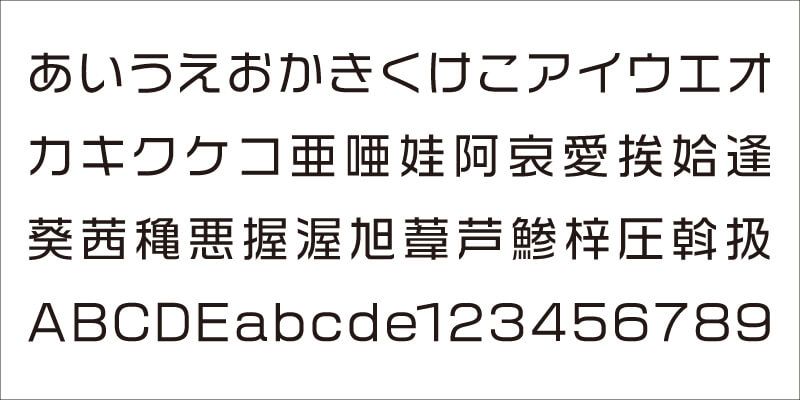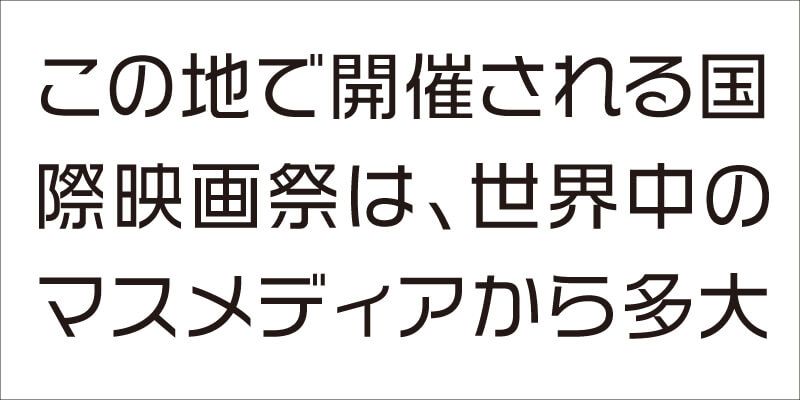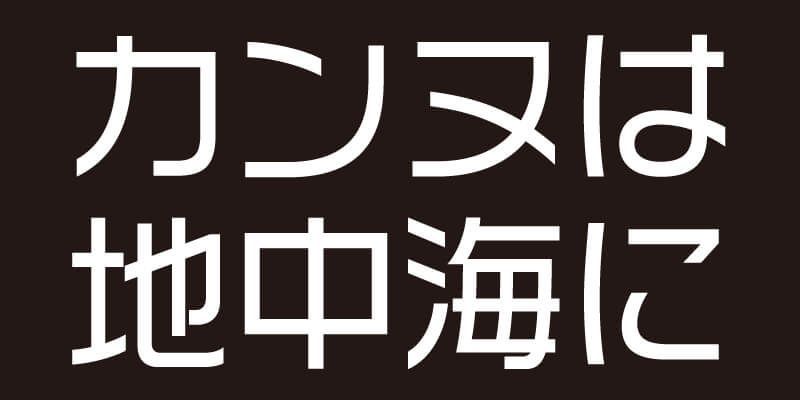
“You can create a logotype just by typing.” VDL-LogoG is a gothic (sans-serif) typeface designed with this main concept. The beginning and end of character strokes are aligned in the horizontal or vertical direction, and every character is precisely designed so that its optical volume can be evenly distributed with all pairs of characters looking well-balanced, whether set in horizontal or vertical lines.
The ethos of Visual Design Laboratory (VDL) is to balance the natural beauty of letterforms with rigorous standards for readability and legibility. VDL offers a comprehensive collection known as “VDL Designers Fonts” (VDLデザイナーズフォント), which is sure to resonate with designers seeking a typeface that’s highly individual while maintaining a broad appeal.